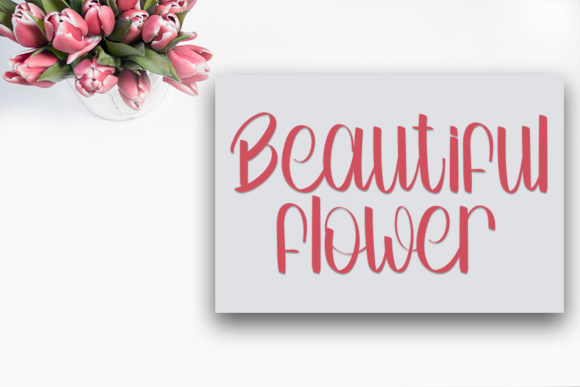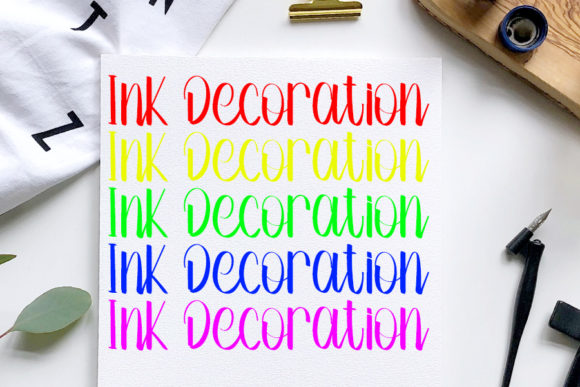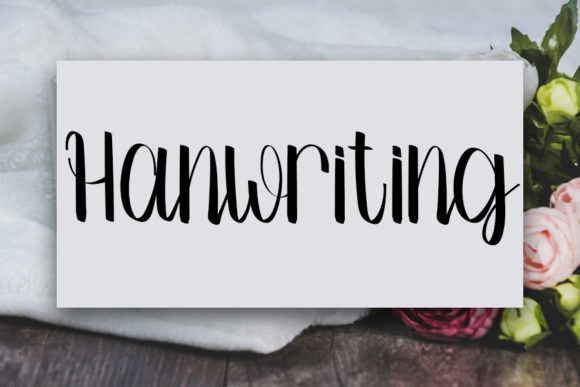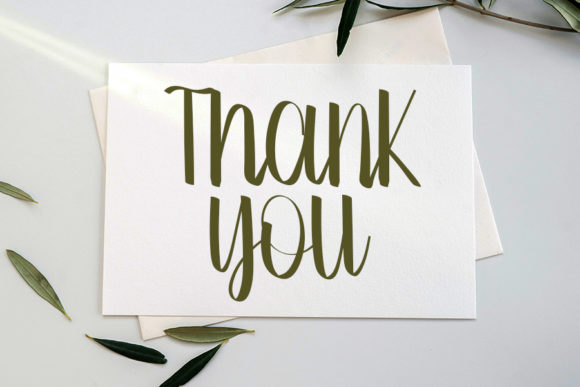
Simple Signature Font
About Simple Signature Font
Simple Signature is a romantic and delicate handwritten font. It has a classy, elegant and modern look that can be used for logos, branding, invitations, stationery, wedding designs, social media posts, and much more!